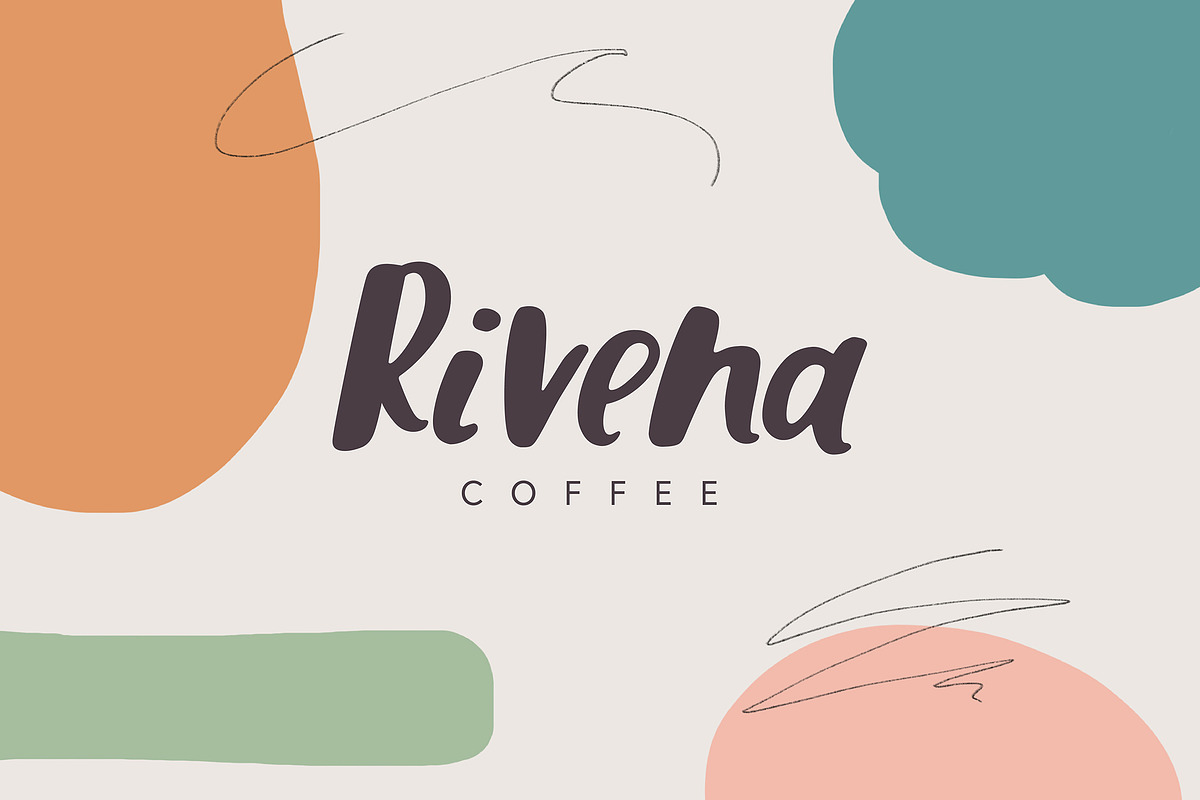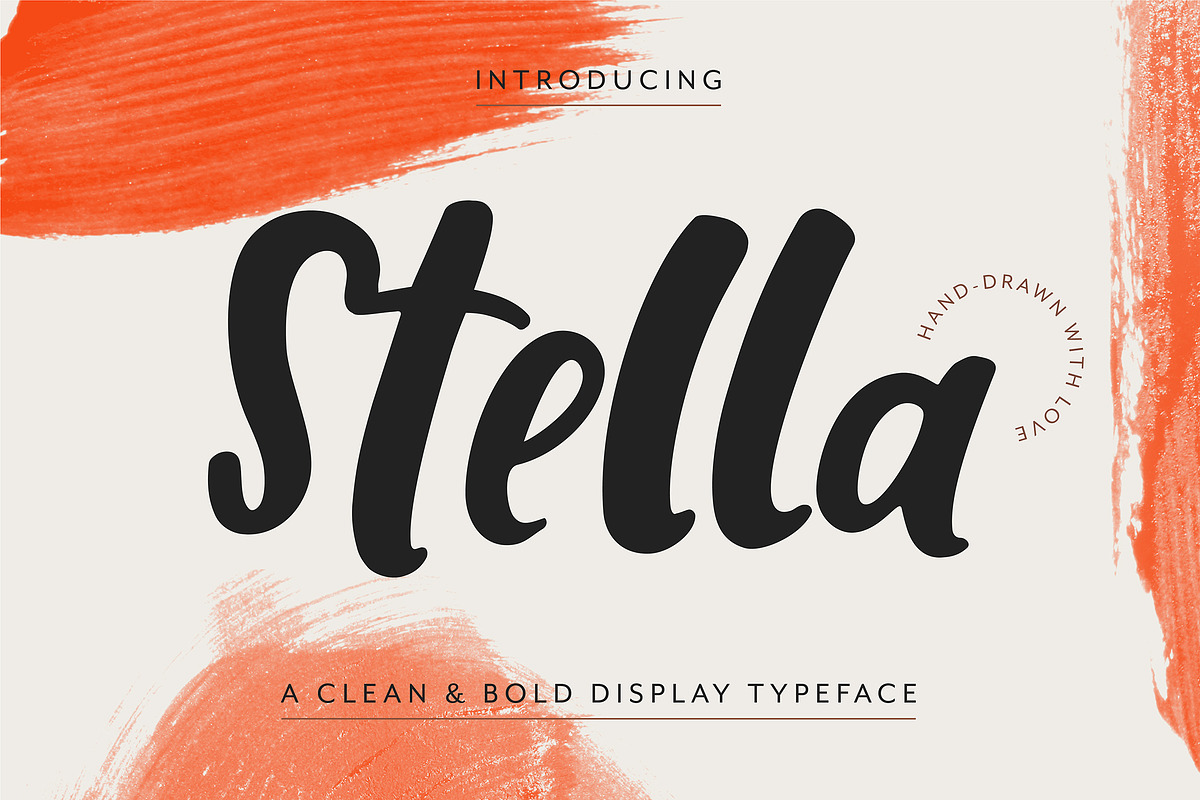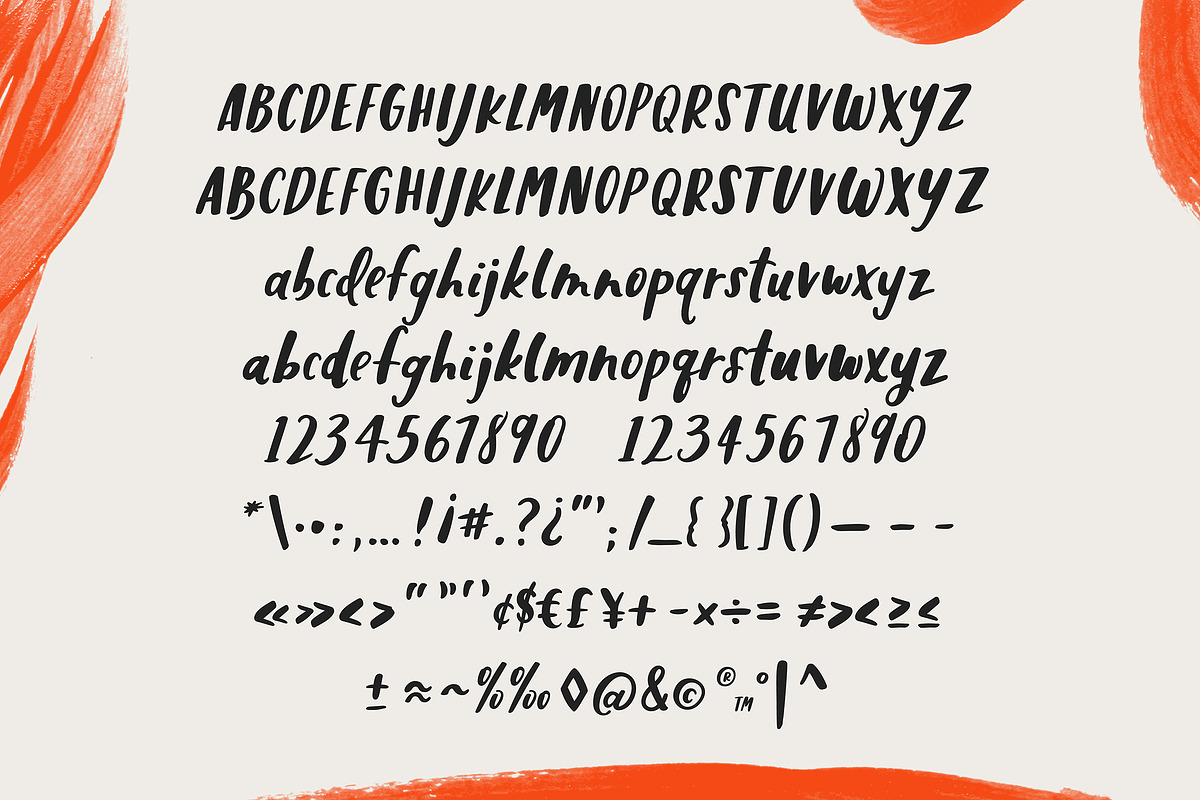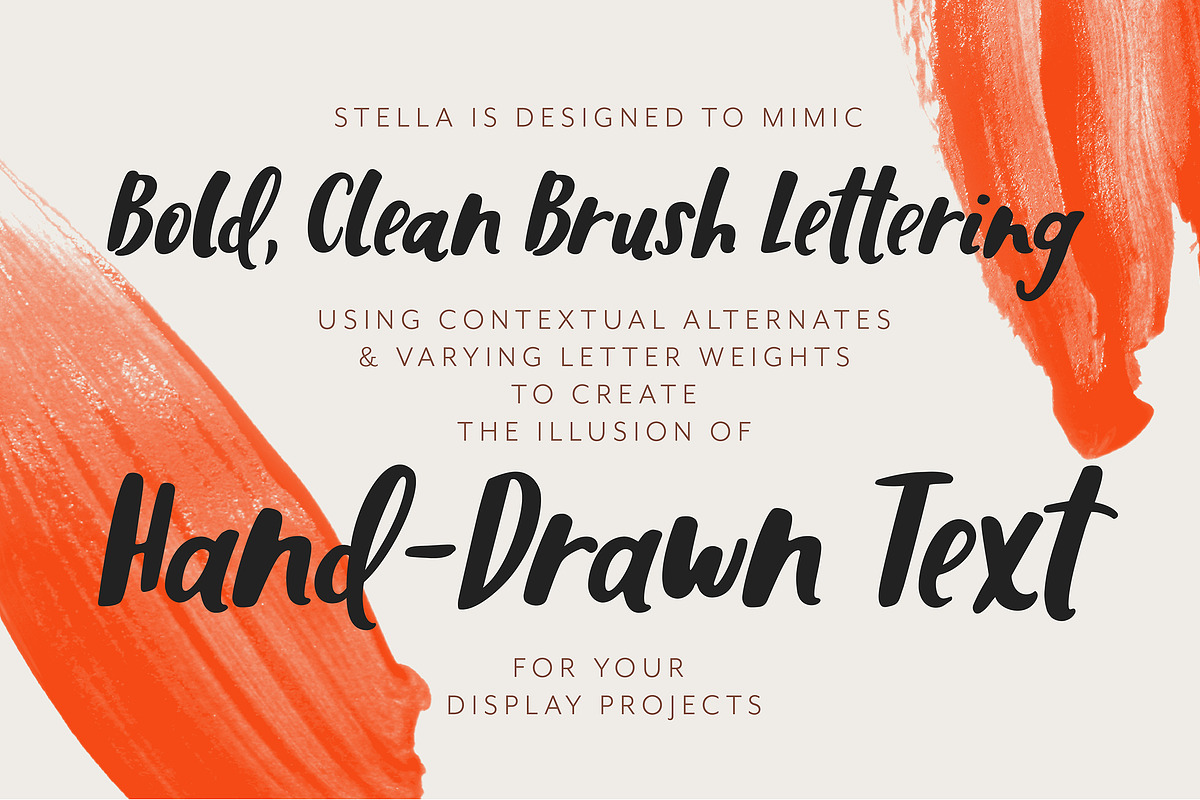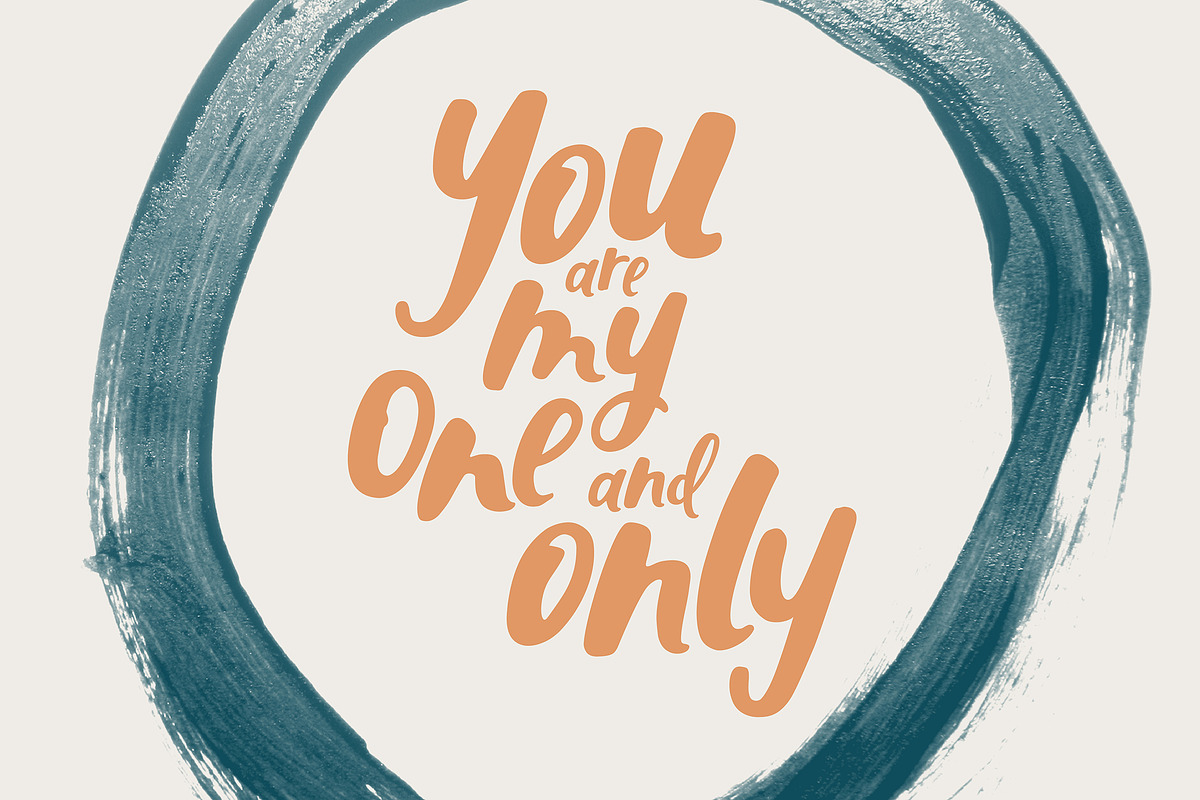
Stella: A Handlettered Font
Introducing Stella Regular, a hand-painted font for bold and clean designs! This is an updated version of our first typeface, Stella Caps, with lowercase characters and improved kerning.
Stella was designed on paper with Japanese sumi ink and a paintbrush and edited digitally to mimic brush lettering. Stella uses contextual alternates and varying letter weights to create the illusion of hand-drawn text, digitally.
Stella is perfect for branding, social media, email marketing, wedding projects, prints, greeting cards and more.
Stella has several OpenType features including contextual and stylistic alternates for both letters and numerals to make each word feel truly hand-drawn. These features are available in design programs that support OpenType.
- This is an updated version of our first typeface, Stella Caps, with lowercase characters and improved kerning.
- Stella uses contextual alternates and varying letter weights to create the illusion of hand-drawn text, digitally.
- Stella has several OpenType features including contextual and stylistic alternates for both letters and numerals to make each word feel trul